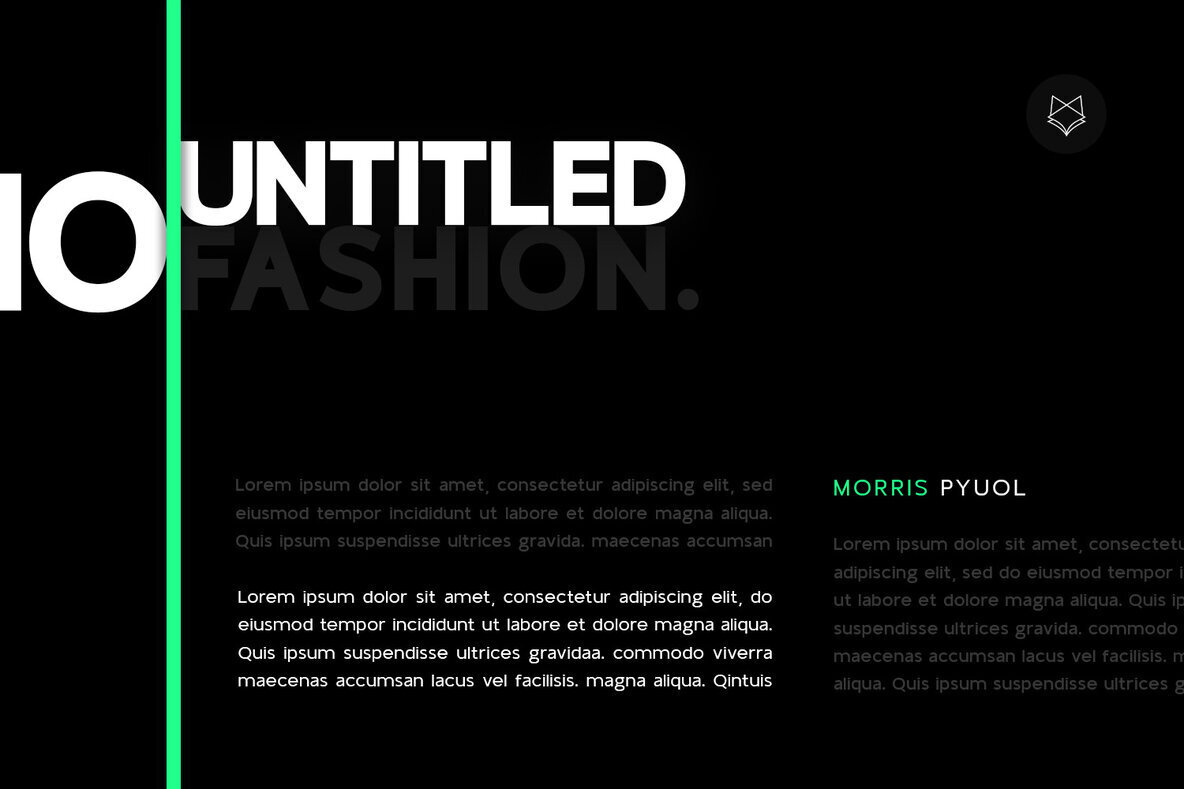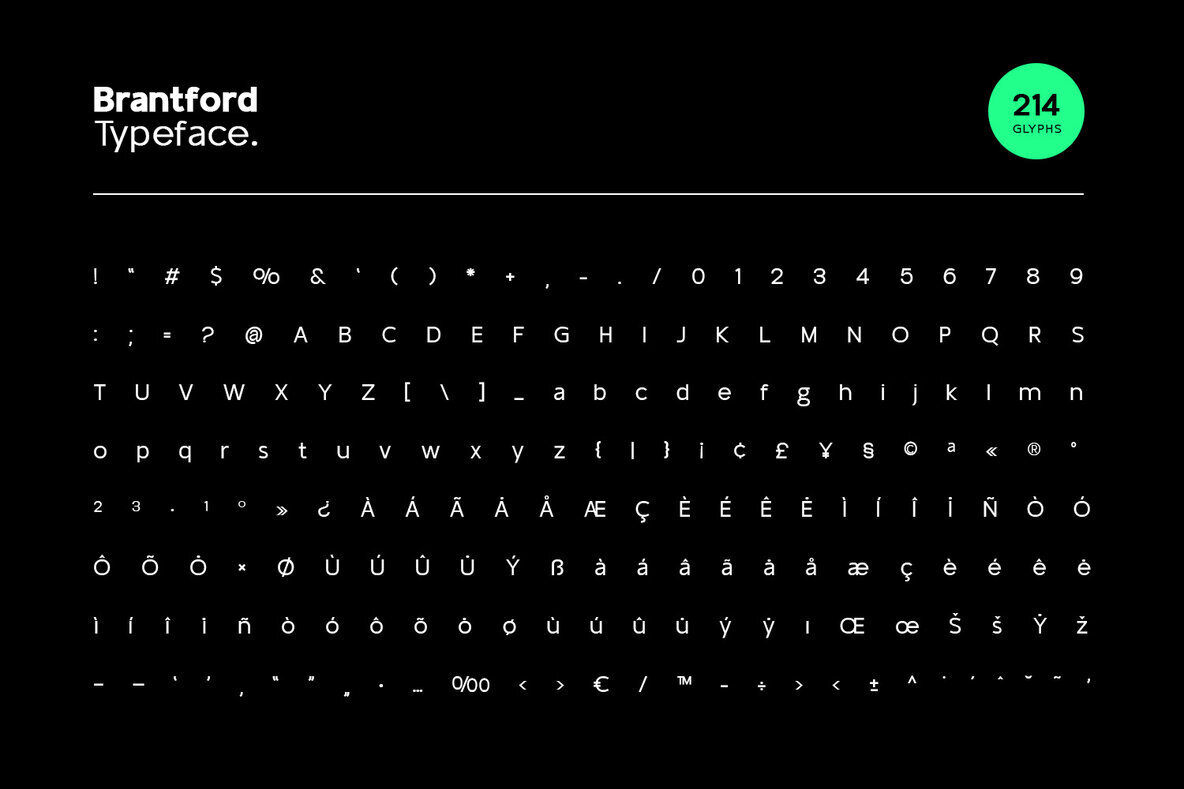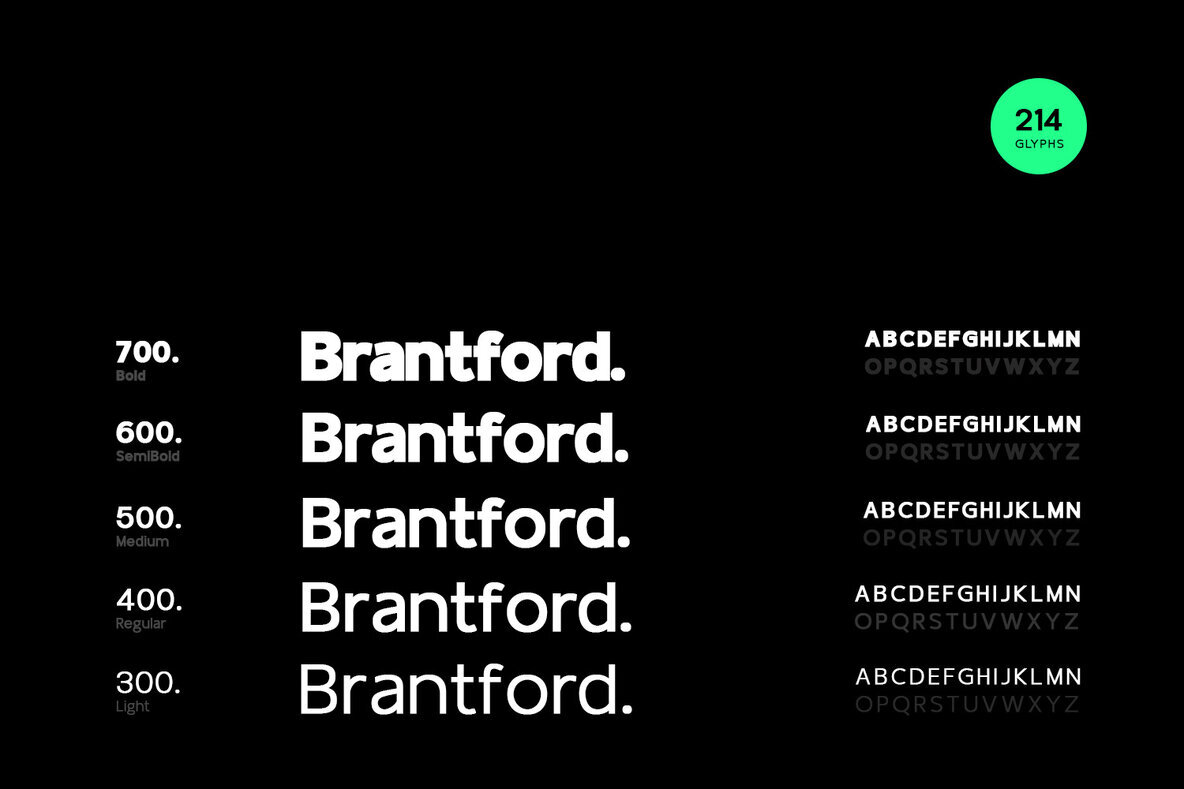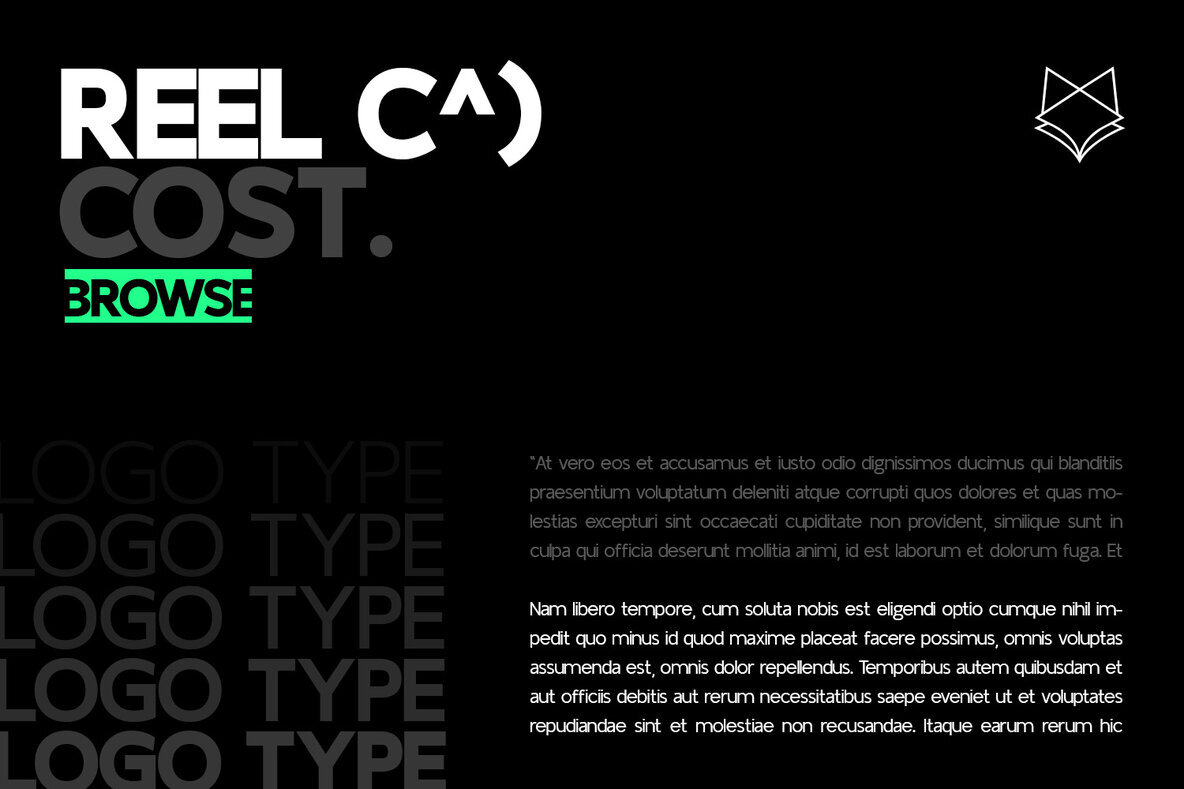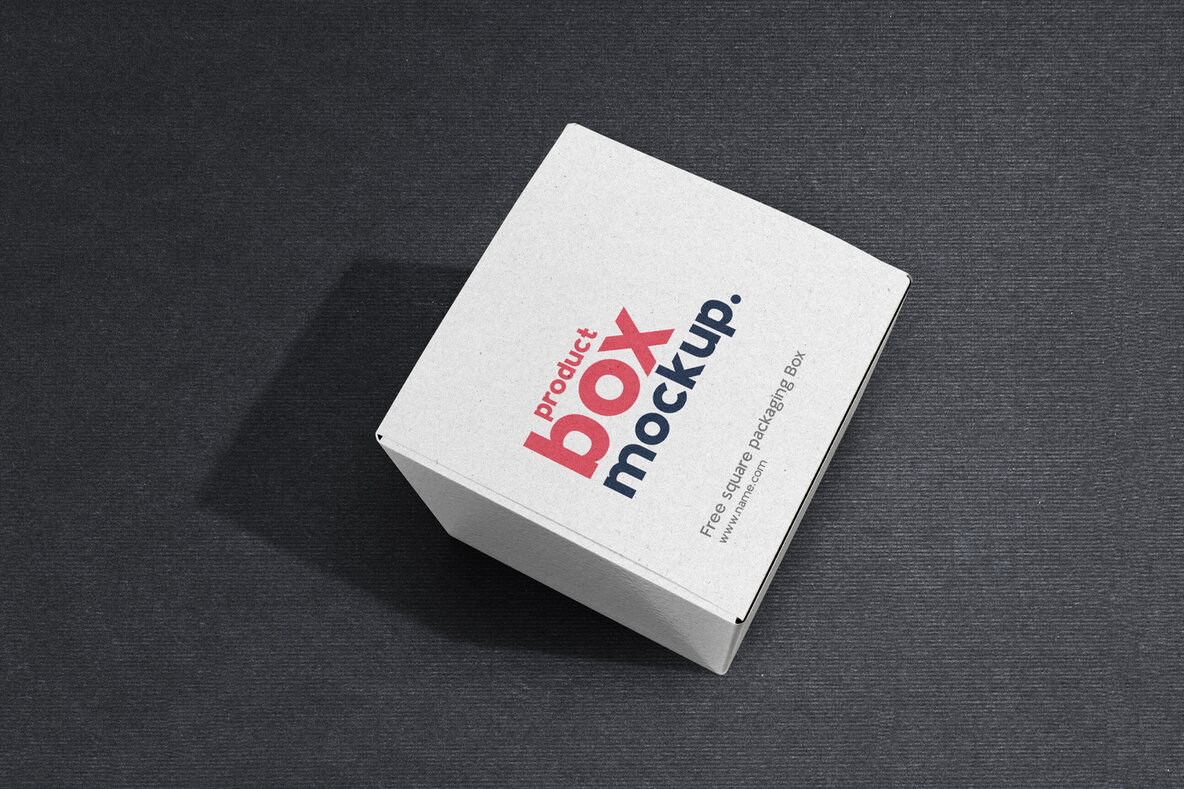
Brantford Typeface 1
Brant Ford is a next generation typeface that includes 5 weights. Created to attract the audience and provide high-quality rendering in various mediums, it works great for branding, logos, titles, headlines, digital ads and more...
- Numerals, extended punctuation & Basic Symbols(200+ Glyphs).
- Expert kerning and quality crafting.
- Uppercase Letters & Lowercase Letters.